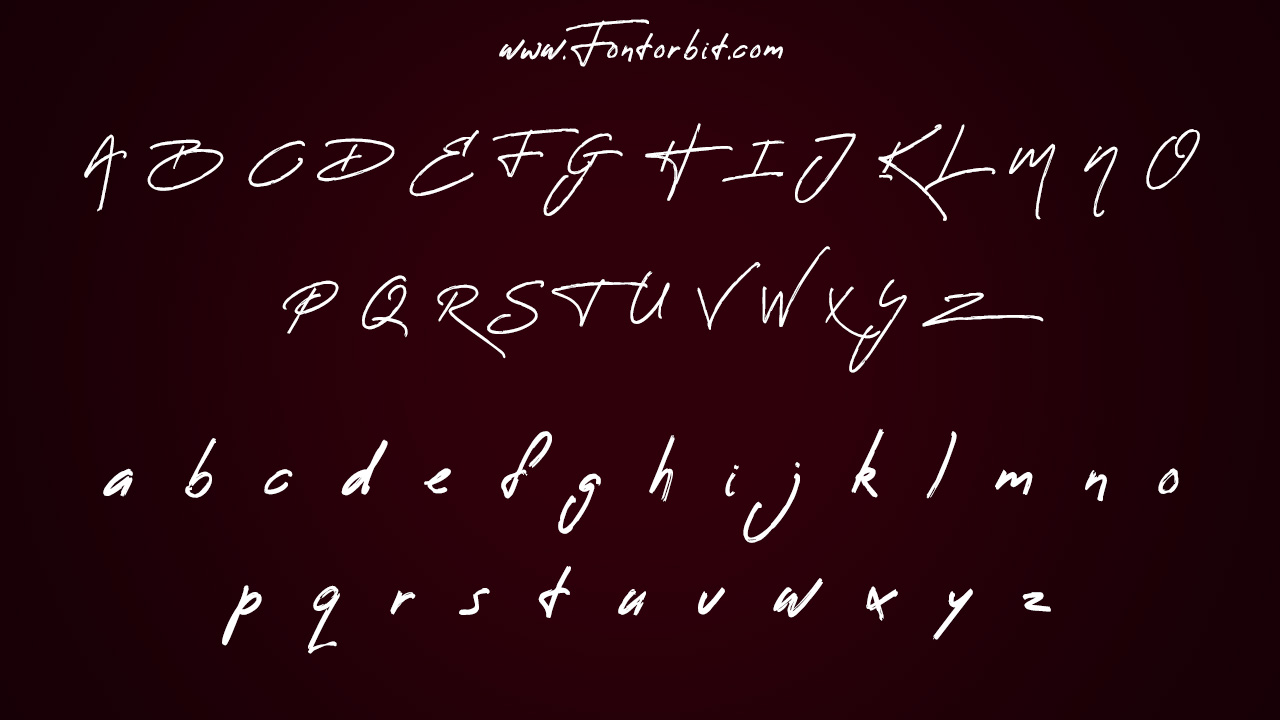
The Reey font is a stylish and modern script font with a handwritten touch, designed for a variety of creative uses. This elegant typeface was designed by Koen van der Bliek.
The Reey font was first released in March 29, 2018, and has since been used for various design purposes. This script font belongs to the script font family, which is perfect for designs requiring a personal and elegant touch.
Reey Font Family Includes
Reey is a versatile font that fits perfectly into any modern and creative design context. Its flowing curves and smooth lines bring a sense of elegance and sophistication. The Reey font family includes several styles:
a. Reey-Regular
Notable Uses Of Reey Font
The Reey font is often used for logos, wedding invitations, product packaging, social media posts, and branding materials. Its handwritten look makes it ideal for projects where a personal touch is needed, especially in the creative and luxury industries.
Reey is perfect for any project that calls for a sophisticated and modern script. It is ideal for:
- Wedding Invitations
- Greeting Cards
- Logos and Branding
- Product Packaging
- Fashion and Luxury Design
Reey is a beautifully crafted script font that can add a sophisticated, handwritten look to your designs. Whether you’re working on branding, invitations, or social media graphics, Reey is a versatile and stylish option that fits many creative projects. Its modern yet elegant design is sure to make your content stand out.
5.What Type Of Font Is Reey?
Reey is a script font with a handwritten style.
7.Is Reey Available In Multiple Styles?
Yes, the font family includes regular, bold, italic, and script styles.